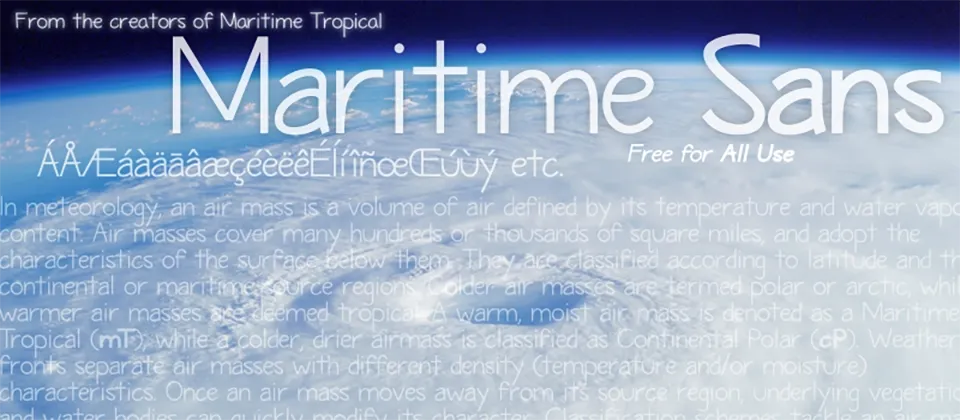
Maritime Sans Font Family
Maritime Sans Font Family is a contemporary sans-serif typeface that embodies a clean and modern aesthetic, making it suitable for various design applications. With its subtly rounded letterforms, Maritime Sans conveys a friendly and approachable feel while maintaining professionalism. The typeface includes three styles—Regular, Bold, and ExtraBold—allowing for versatility in both body text and headlines. Its balanced x-height and slightly condensed proportions enhance legibility, making it ideal for branding, websites, and playful designs. Maritime Sans is perfect for projects that require a touch of modernity combined with a welcoming character, appealing to a wide range of audiences.